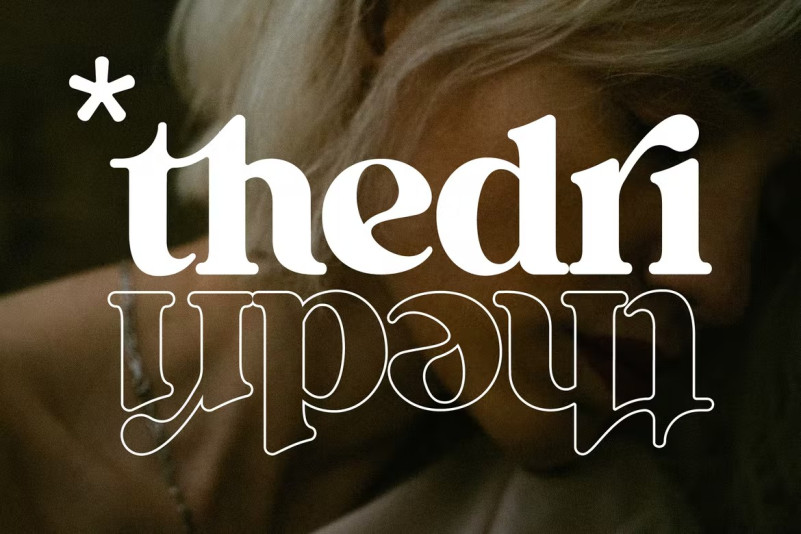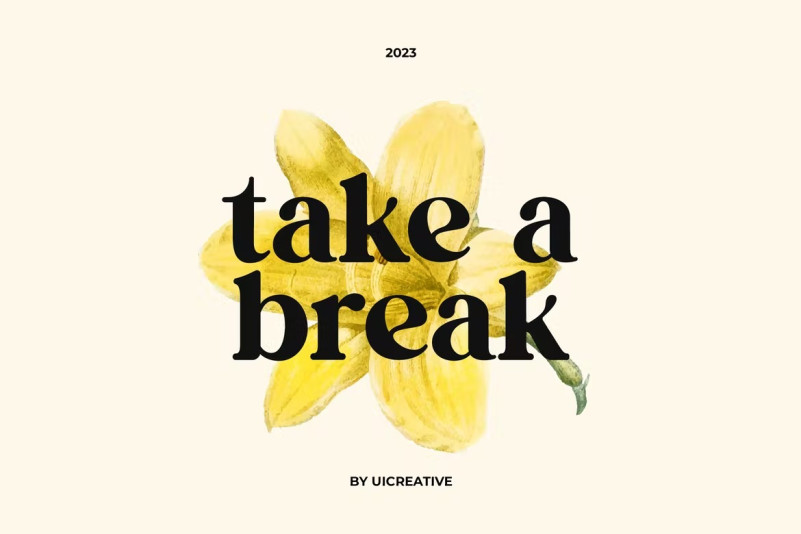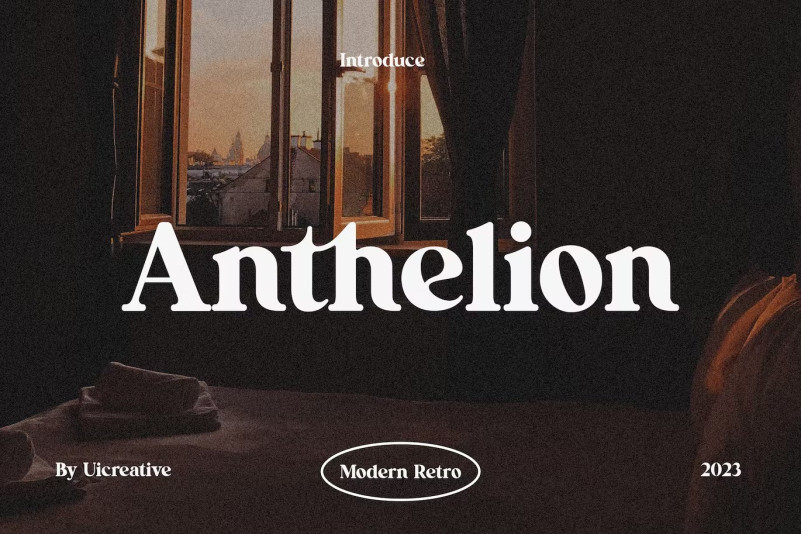
Anthelion Font
Anthelion Font – Modern Retro Serif Font . Anthelion Font that feels beautiful classy, ​​elegant, and modern. This font is perfectly suited for a wide variety of projects, such as signature, stationery, logo, wedding, typography quotes, magazine or book covers, website headers, clothing, branding, packaging design, and more. Also, fashion-related branding or editorial design displays both masculine and feminine qualities.